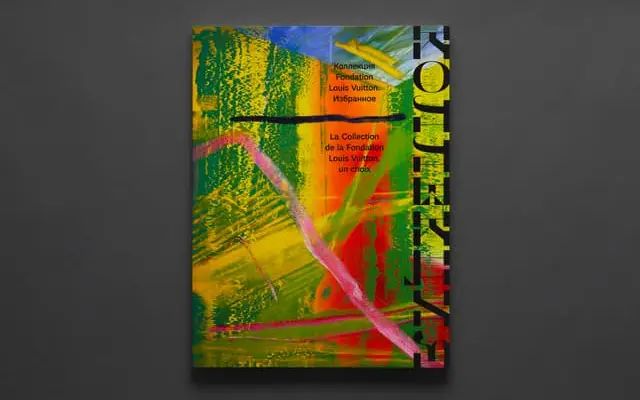
Karloff Negative
Part of a three-way type system by Typotheque that explores extreme stroke contrast by inverting conventional thick-thin relationships.
Karloff Negative is one arm of the Karloff system, which spans Positive, Negative and Neutral variants, each treating stroke contrast differently as a structural variable rather than a stylistic afterthought. The Negative cut reverses the expected axis of contrast, thickening strokes where a conventional serif would be thinnest, producing a tension that makes it particularly suited to display and editorial contexts. Three weights run from Regular to Bold, each with a matching italic, and named style bundles such as Amsterdam, Bengaluru and Copenhagen allow individual purchase of specific weight-style combinations.
Karloff Negative belongs to a three-part system exploring extreme contrast between thick and thin strokes; the Negative variant inverts the conventional stress, placing thick strokes where thin would traditionally appear, giving it a distinctive reverse-contrast character.